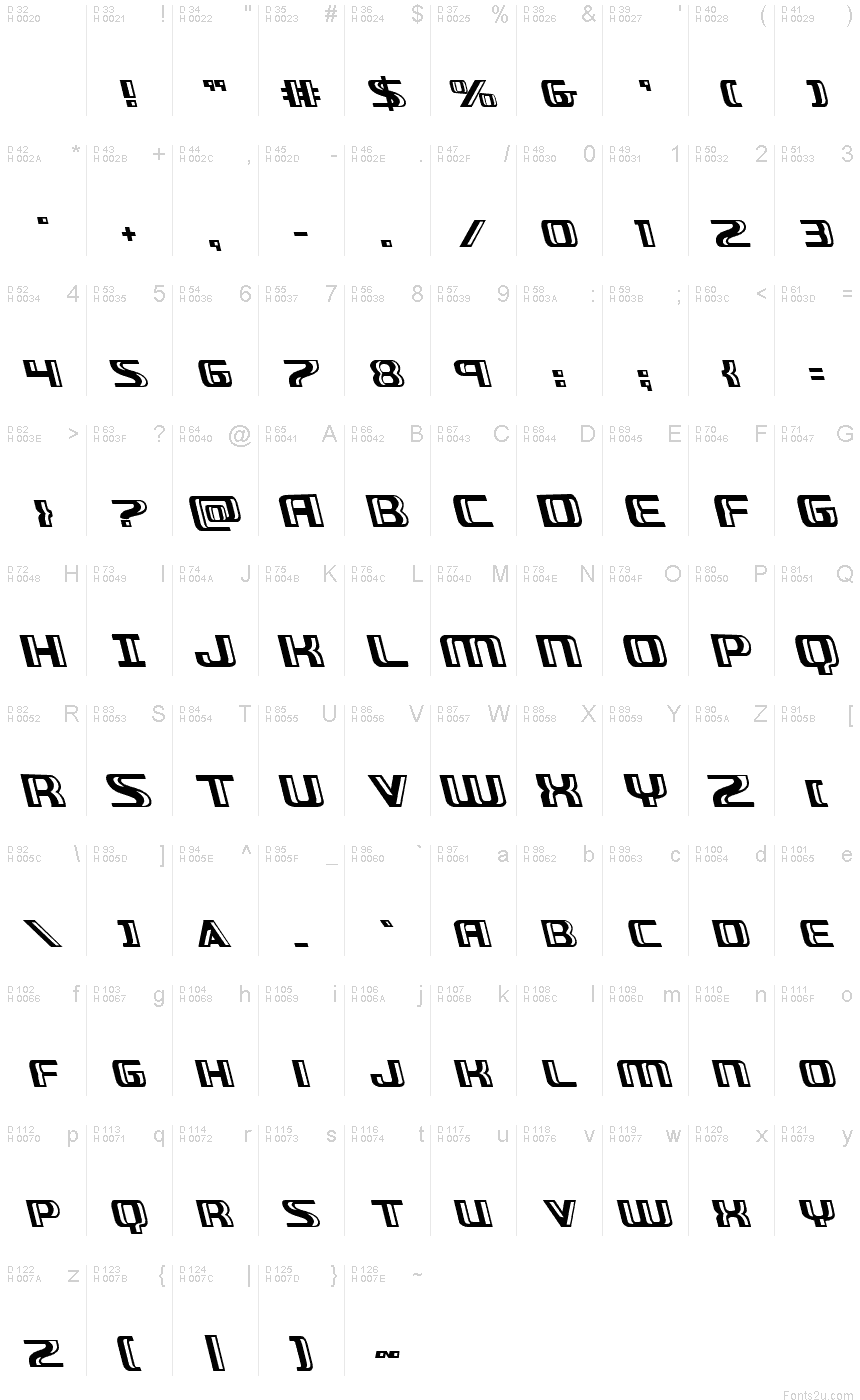
Grease Gun Leftalic from Iconian Fonts is a free groovy display font with a stretched, swept-back silhouette. Its broad caps lean sharply left, and dark strokes are split by narrow white channels that bend through the letter shapes. Rounded joins and pinched openings give the alphabet a slick retro custom-lettering flavor.
It turns posters and album covers into automotive-style lettering. That speed-shop attitude also suits racing merchandise and music branding, where the lettering can function as the product's own graphic emblem.